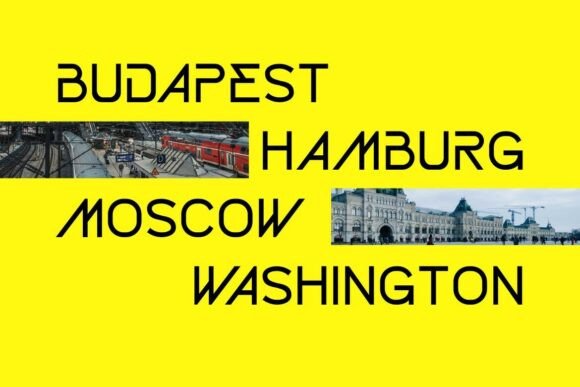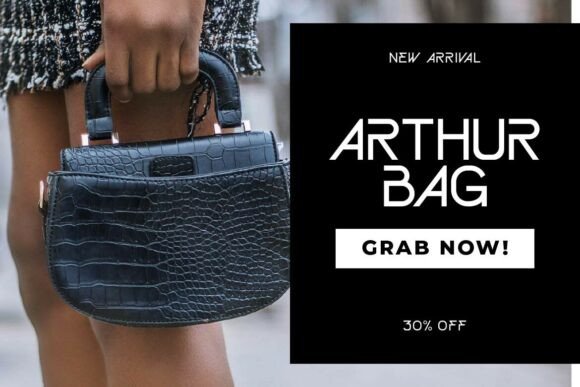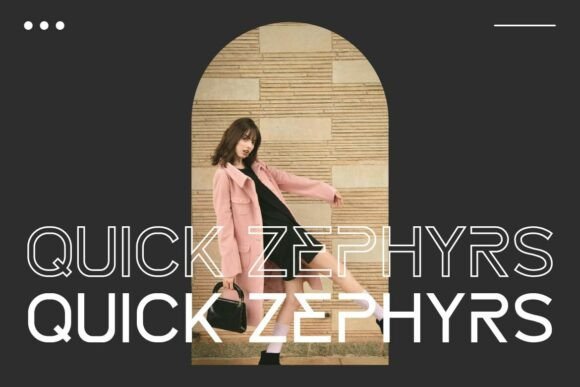
Introduction to Merdale Font
Have you ever stared at a blank page, waiting for the perfect font to bring your creative project to life? The struggle is real, but what if I told you that your search is over? Meet Merdale Font, a modern display sans serif font that’s about to revolutionize the way you design.
With its playful curves, clean lines, and thoughtful letterform variations, Merdale Font is the ultimate design resource for anyone looking to add a touch of sophistication and flair to their work. Whether you’re creating magazine headlines, posters, business cards, or product packaging, this high-quality font is sure to make every word stand out with style. And the best part? You can download it for free and use it with a transparent background, giving you complete creative freedom.
As a designer, you know how valuable a great font can be. It’s the difference between a good design and a great one. With Merdale Font, you’ll have the perfect tool to take your designs to the next level and make them truly unforgettable.
- High-quality design resource suitable for various creative projects, including logos, posters, and digital art.
- Features a transparent background, making it ideal for designs that require a clean and minimalist aesthetic.
- Unique characteristics include a modern and elegant feel, with subtle flair and sophistication.
Honest Review: Merdale Font
Here are some of the things that work well with the Merdale Font:
- High quality design: The font is crisp and clean, making it perfect for a variety of design applications.
- Great for titles and headings: The font is perfect for creating eye-catching titles and headings for my design projects.
However, I did notice a few limitations with the Merdale Font:
- Not ideal for large blocks of text: The font can start to look a bit awkward when used in large blocks of text.
- Limited font weights: The font only comes in a few different weights, which can limit its versatility.
Overall, I’m impressed with the Merdale Font. It’s a great design resource that’s perfect for designers on a budget. With its high quality design and easy-to-use features, it’s a great addition to any design toolkit.
Merdale Font is perfect for creative projects such as social media graphics, presentations, reports, and documents. You can also use it to create logos, illustrations, or graphics for your business or personal brand.